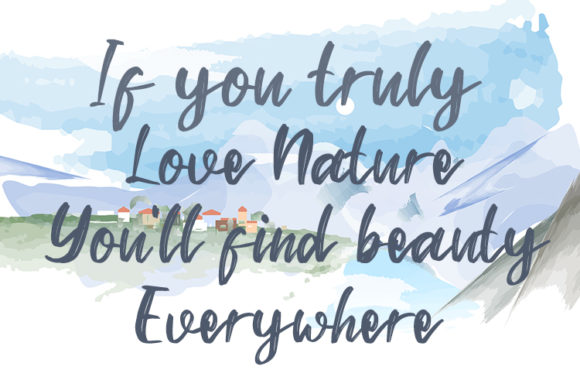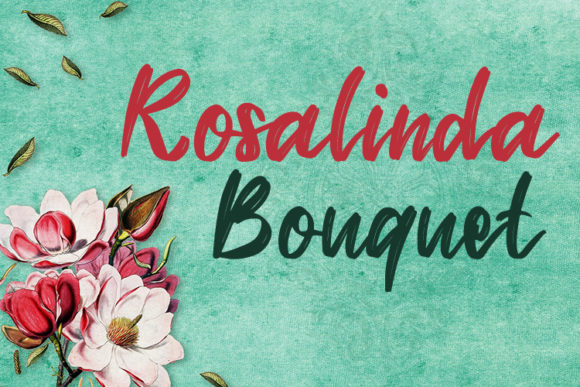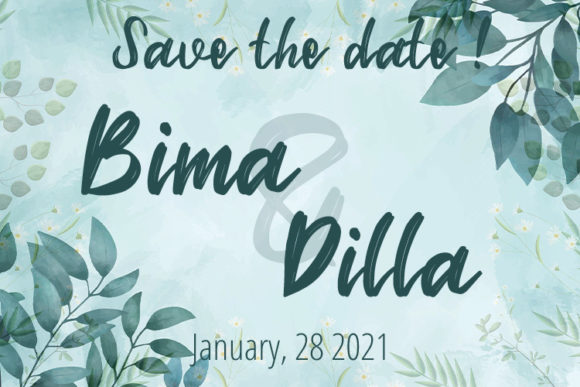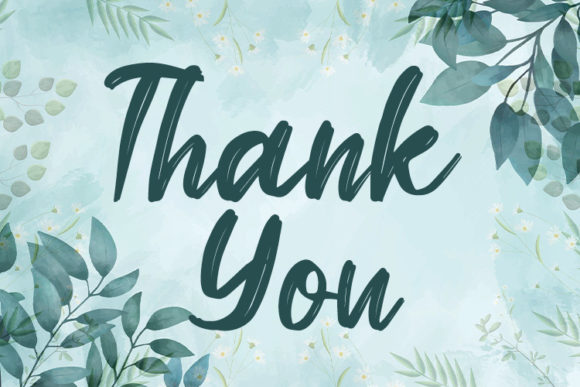
Hello Maria Font
About Hello Maria Font
Hello Maria is a beautiful and flowing handwritten font, created to make each of your designs come alive. Its natural and unique style makes it incredibly fitting to a large pool of designs.